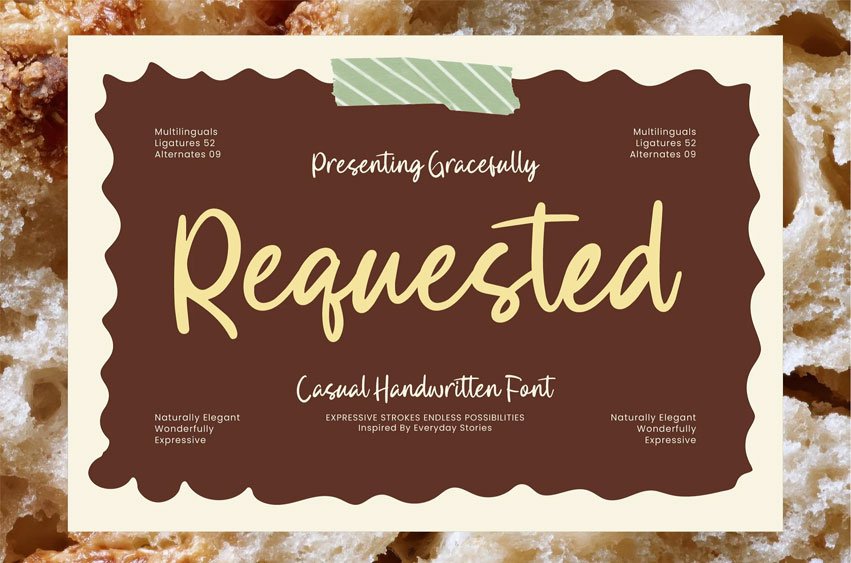
Requested Font
Requested Font is a casual handwritten font designed to capture the warmth, comfort, and authenticity of everyday handwriting. Inspired by personal notes, journals, planners, recipe cards, and creative stationery, Requested delivers a friendly and approachable personality while maintaining a clean and expressive handwritten style.
With flowing strokes, relaxed curves, and natural letter connections, this font is perfect for branding, packaging design, invitations, greeting cards, bakery branding, lifestyle visuals, social media content, journals, planners, and creative editorial layouts that need a personal yet polished touch.
Requested balances casual charm with natural handwriting flow, making it versatile for both decorative and professional creative projects.
• ✨ Casual Handwritten Style – Ideal for branding, packaging, invitations, stationery, journals, planners, and lifestyle visuals
• ✨ Rich Stylistic Options – Includes extensive ligatures and alternates for expressive and unique typography
• ✨ Warm & Authentic Character – Natural handwritten rhythm with friendly strokes and genuine personality
• ✨ Print & Digital Ready – Optimized outlines for consistent results across all media
• 🔡 OpenType Features: 52 Ligatures & 9 Alternates
• ✏️ Total Glyphs: 393 Characters
• 🌍 Multilingual Support
Requested is created for designers who want a casual handwritten font that feels warm, friendly, and naturally expressive—perfect for invitations, stationery, lifestyle branding, packaging, bakery projects, and creative storytelling.